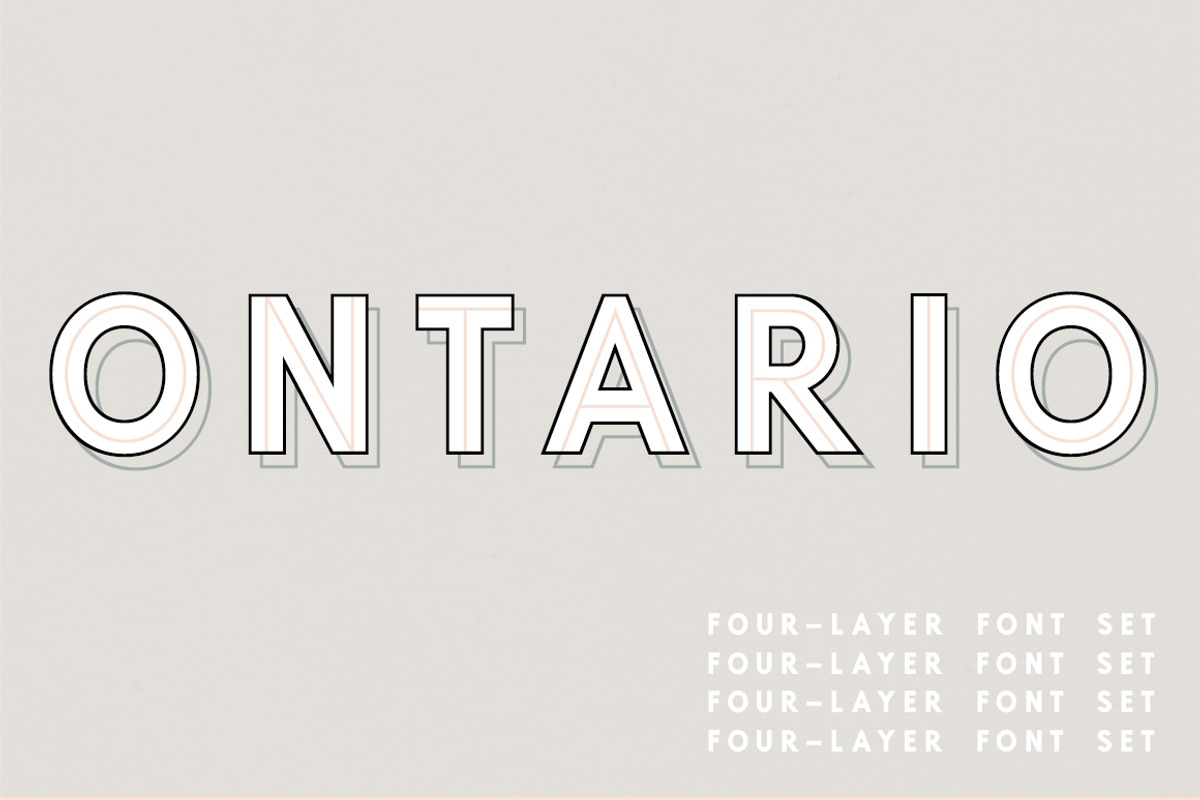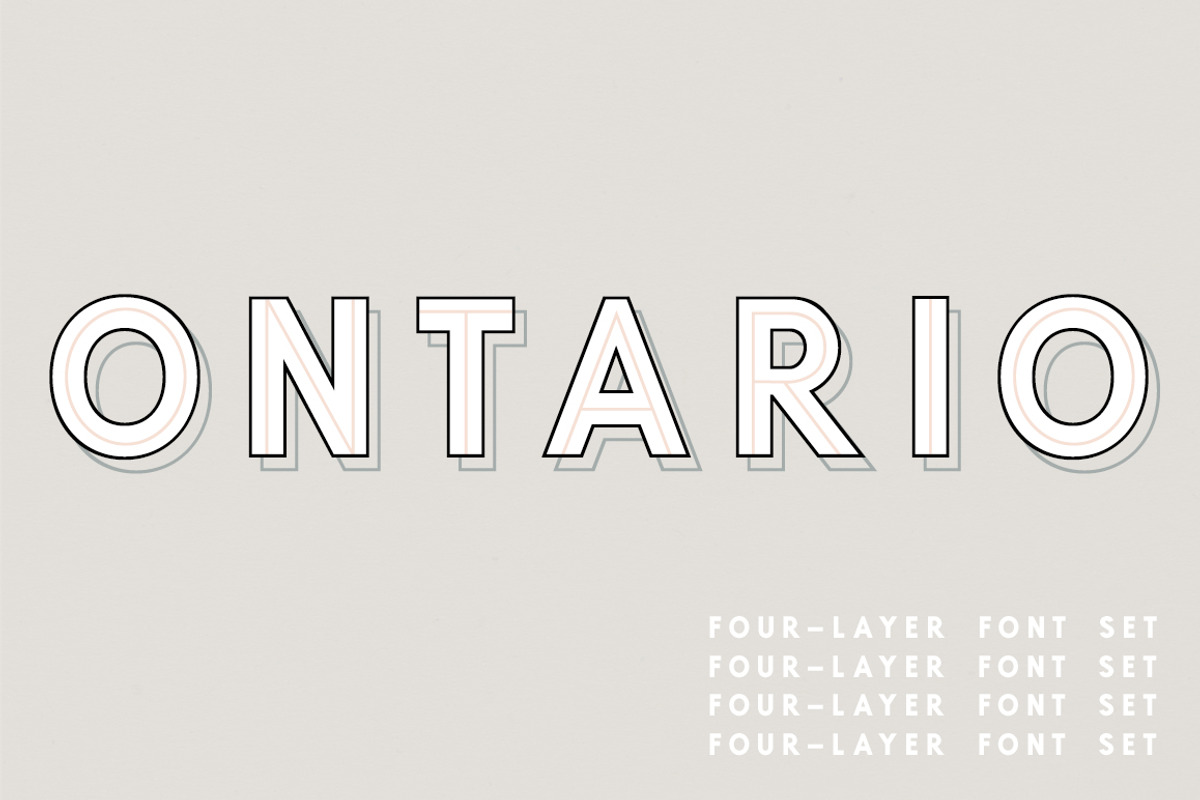
Ontario | A 4-Layer Font Set
Ontario | A 4-Layer Font Set by Jen Wagner Co is a font selected for branding, posters, packaging, typography.
- Includes: Ontario Regular (solid) Ontario Outline (outlines the solid) Ontario Outline Offset ("drop shadow" outline) Ontario Inline (create
- Ontario Regular
- Ontario Inline
- Ontario Outline
- Ontario Outline Offset
Why Ontario | A 4-Layer Font Set is worth a look
Ontario | A 4-Layer Font Set by Jen Wagner Co fits naturally into Branding, posters, packaging, typography.